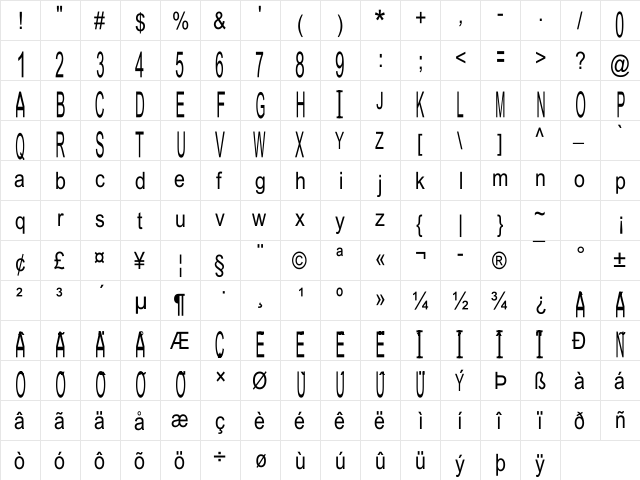
Julia Special Font H Regular
| Foundry | DedMozz Co |
| Designer | DedMozz |
Design Context for Julia Special Font H Typeface
Julia Special Font H is a composed and adaptable typeface that performs quietly and consistently across a wide range of design contexts.